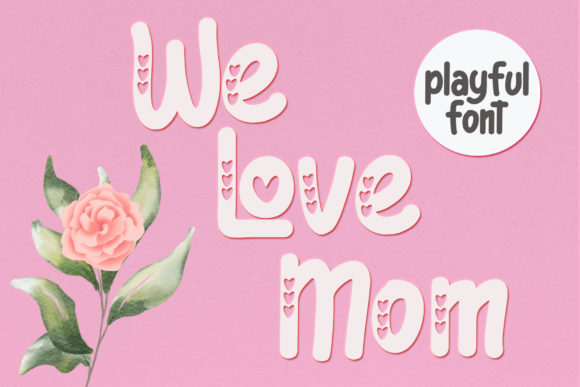
Unveiling We Love Mom Font, a display font that ignites your visual identity with a dash of elegance and modernity. Crafted by Letterafa Studio, this font family is not just a collection of letters; it's a gateway to captivating connections. We Love Mom Font is an orchestra of beautiful characters that dance gracefully across your designs, leaving a trail of enchantment in their wake.
Imagine your social media posts adorned with this font, captivating your audience with every scroll. Your fashion designs will speak volumes, infused with a touch of sophistication and panache. Printed quotes will come alive, carrying your messages with artistic flair. Dive into the world of visual storytelling, using We Love Mom Font as your paintbrush to create masterpieces that resonate with your viewers.
We Love Mom Font is not merely a tool for design; it's a gateway to expressing emotions, evoking memories, and forging connections. Its versatility knows no bounds, extending effortlessly from the digital realm to the tangible world. Let your creativity flourish as you weave magic with this stunning font, transforming ordinary words into extraordinary expressions.
Embrace the limitless potential of We Love Mom Font and unlock a world of visual enchantment. Its PUA encoding grants you access to a treasure trove of glyphs and swashes, inviting you to explore the depths of creativity and unleash your imagination. The possibilities are infinite, awaiting your artistic touch to bring them to life.